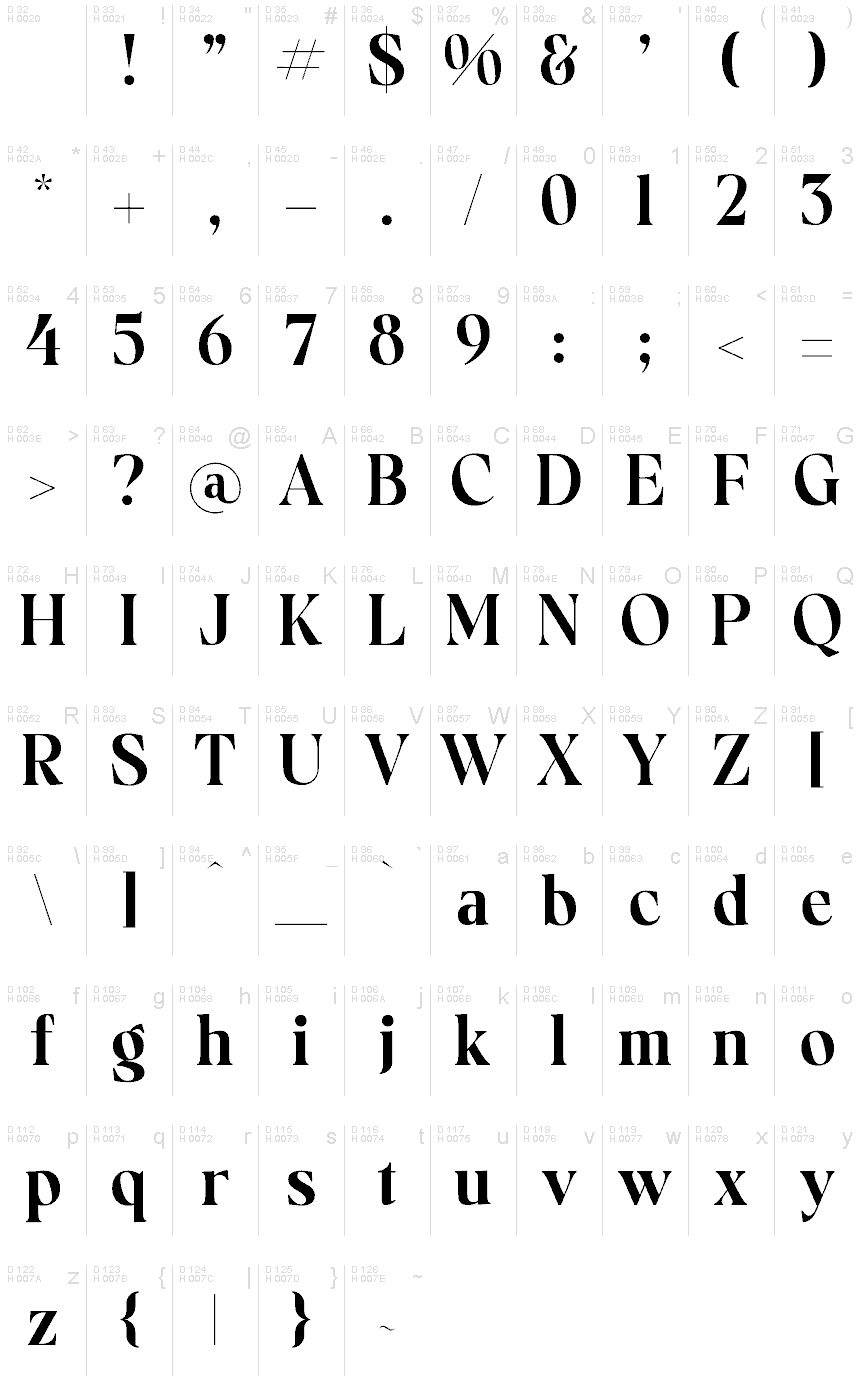
Brigfted
Brigfted font by Storytype Studio is a free serif font with an elegant, modern, and sophisticated style. While it already catches attention, its decorative elements add this little extra factor that makes it impactful for all uses. It was clearly crafted by the designer to be perfect, and its refined aesthetic is what will make a difference.
Invitations and business cards will reach top quality with it on display just as much as website headers, section titles, or creative book covers. Strengthen your advertisement posters and social media posts or present better branding identity designs where each component is tied together in style.